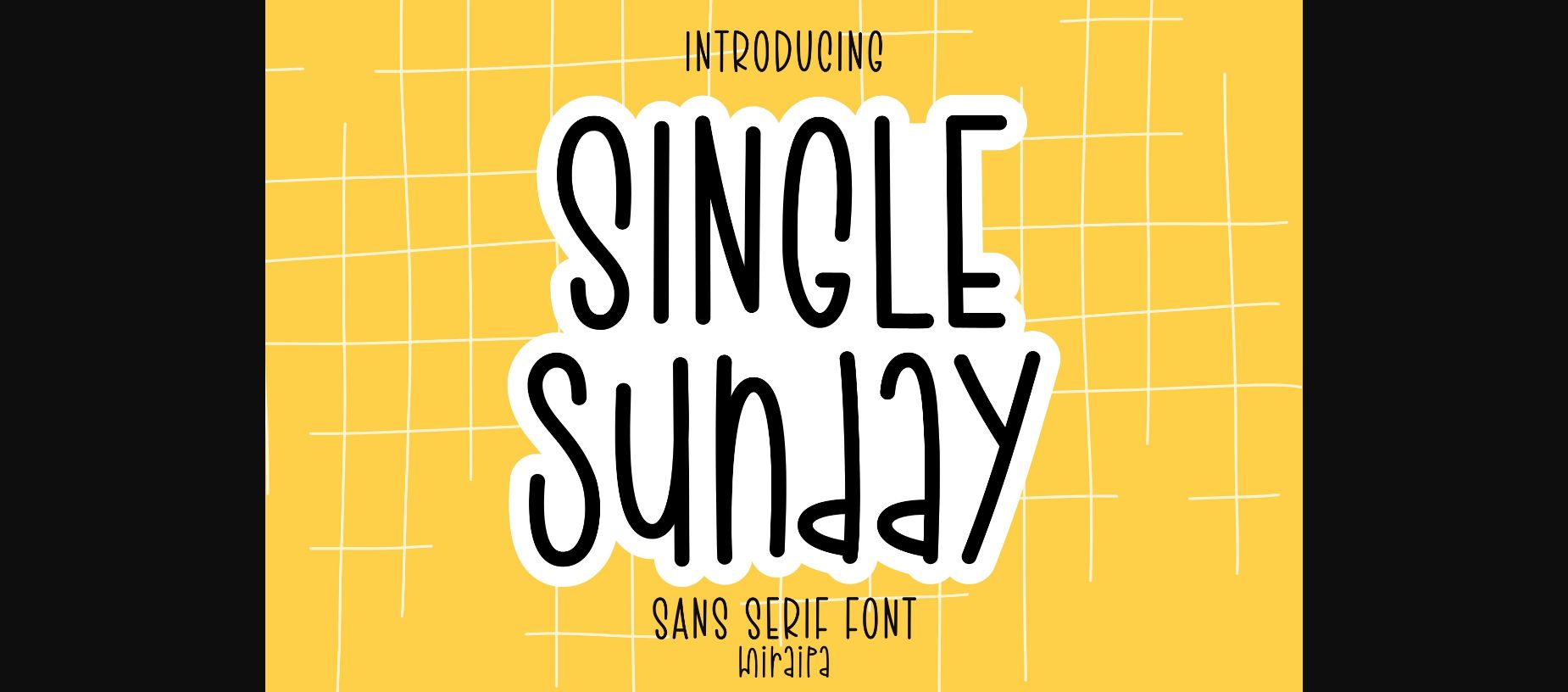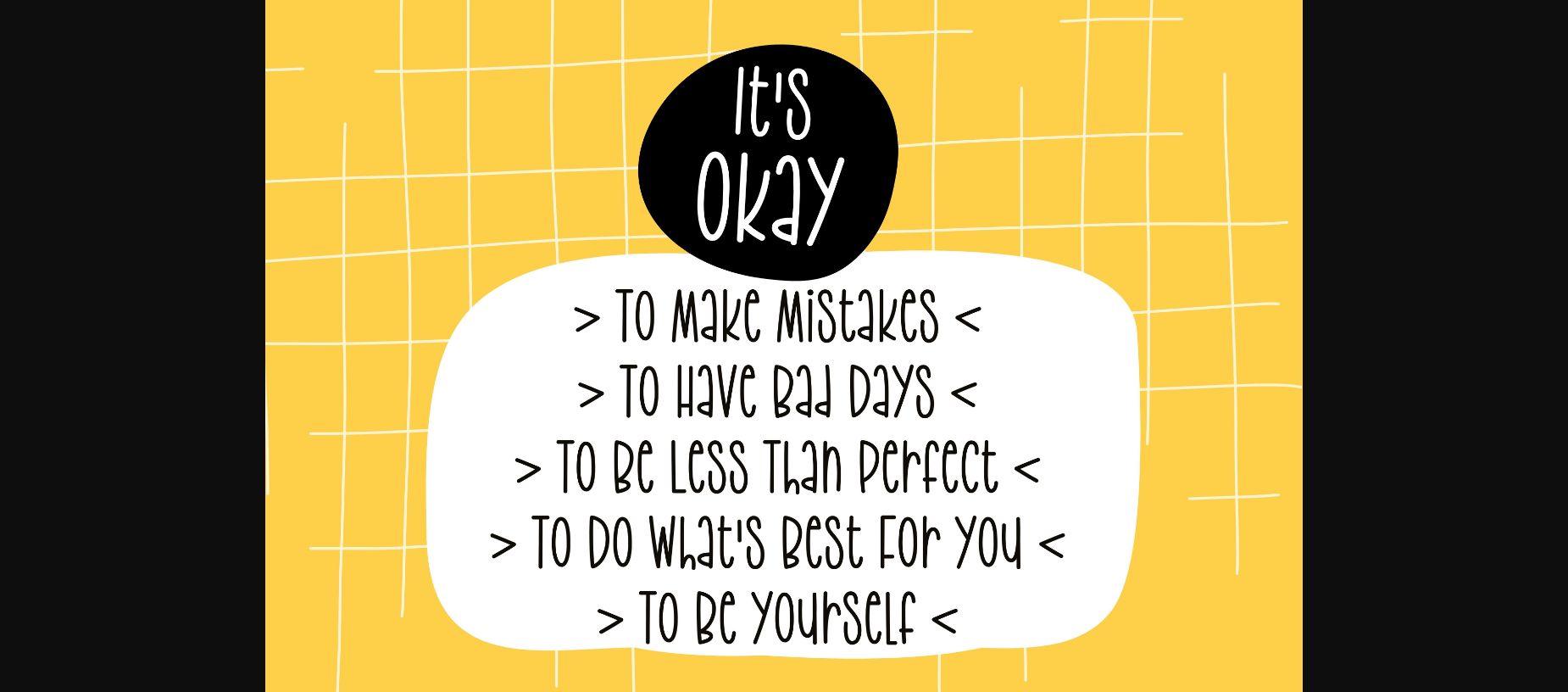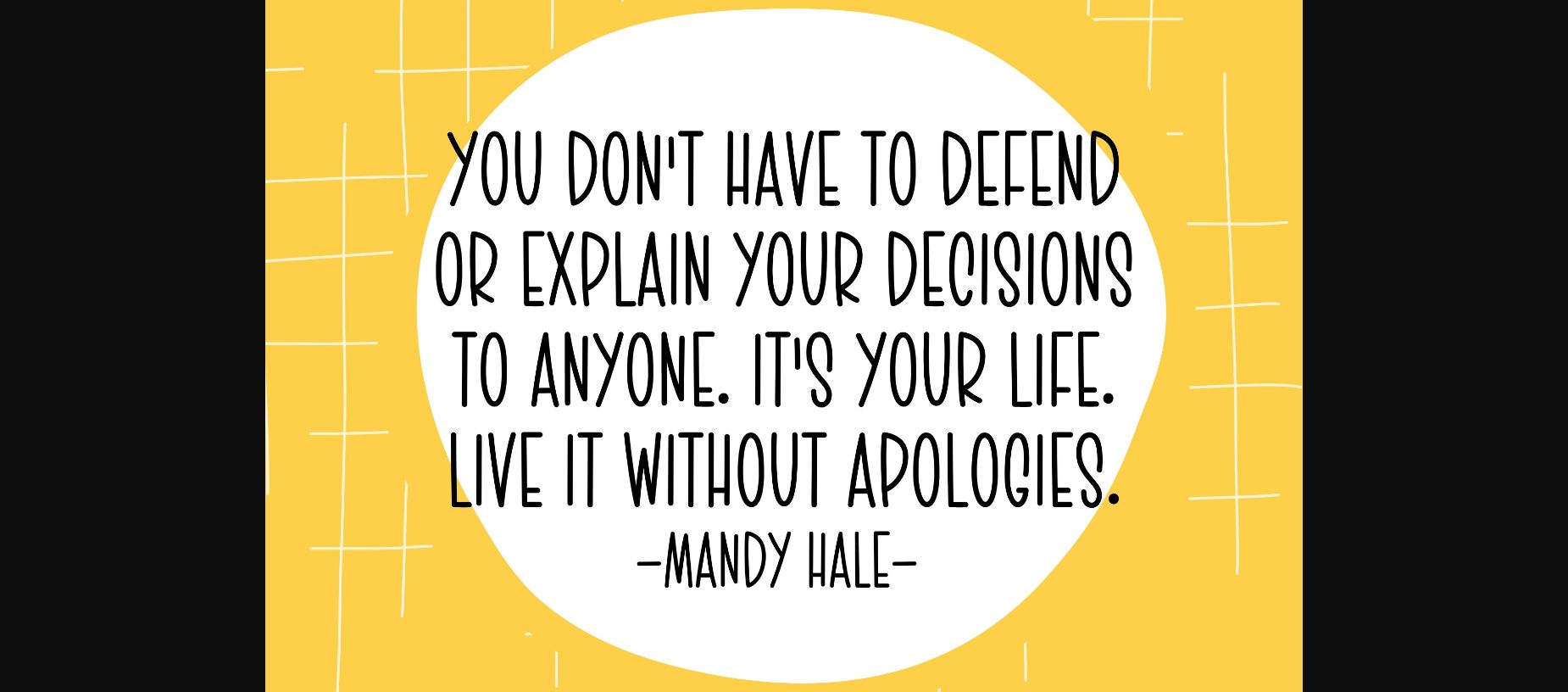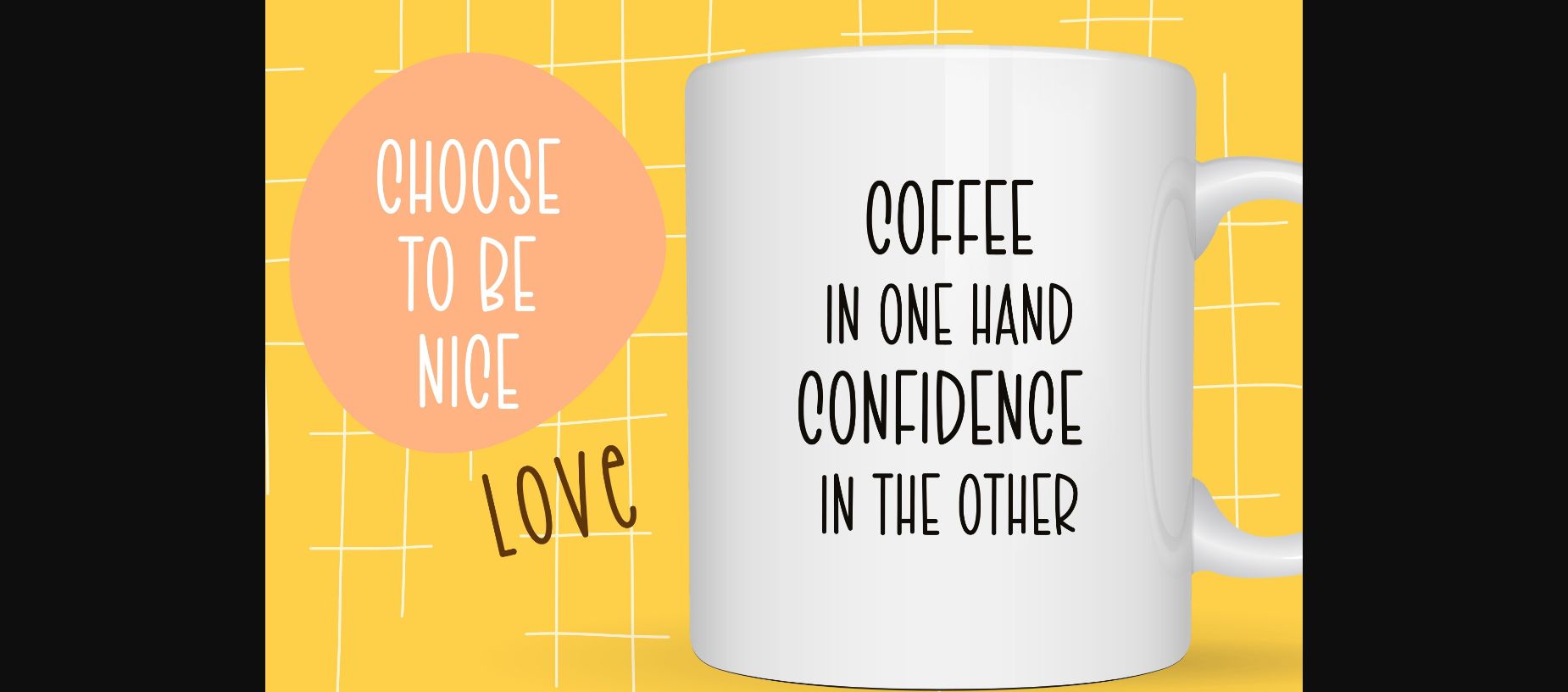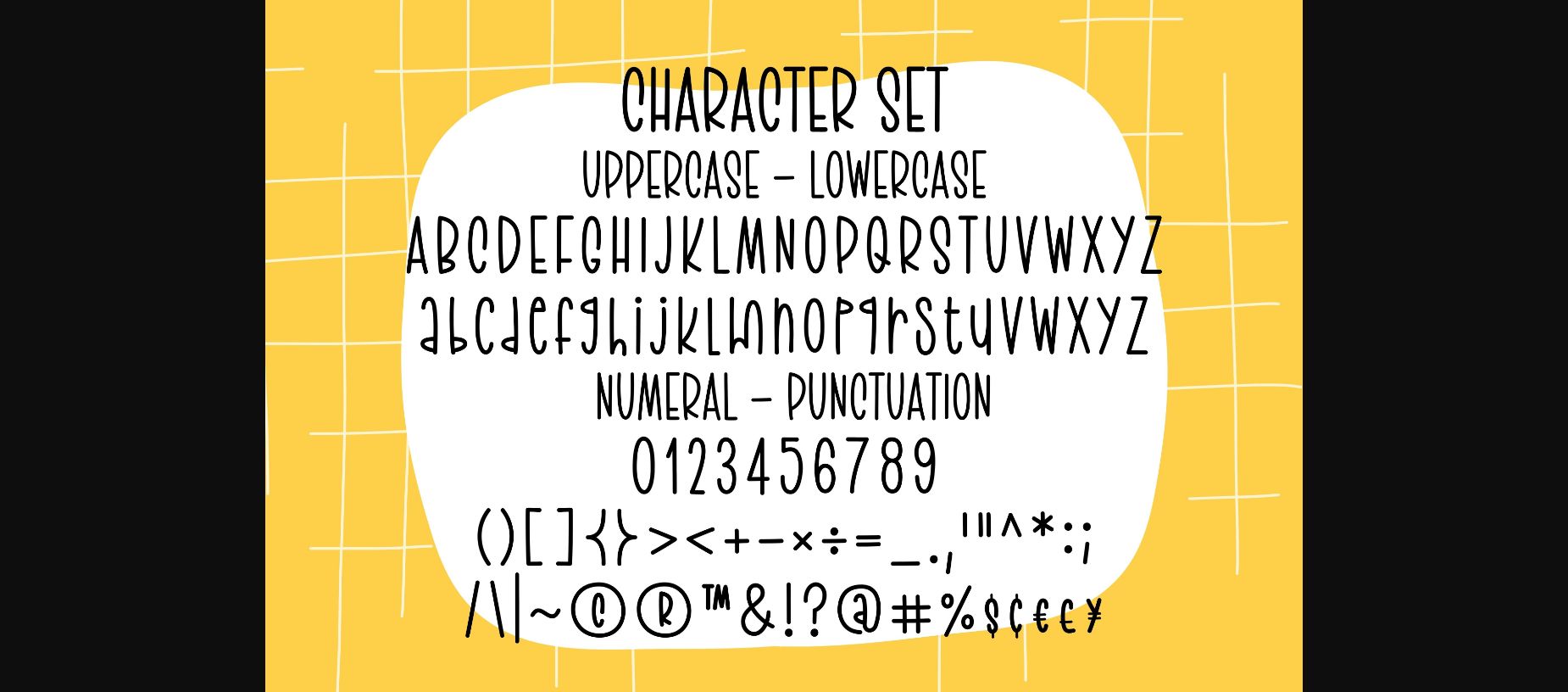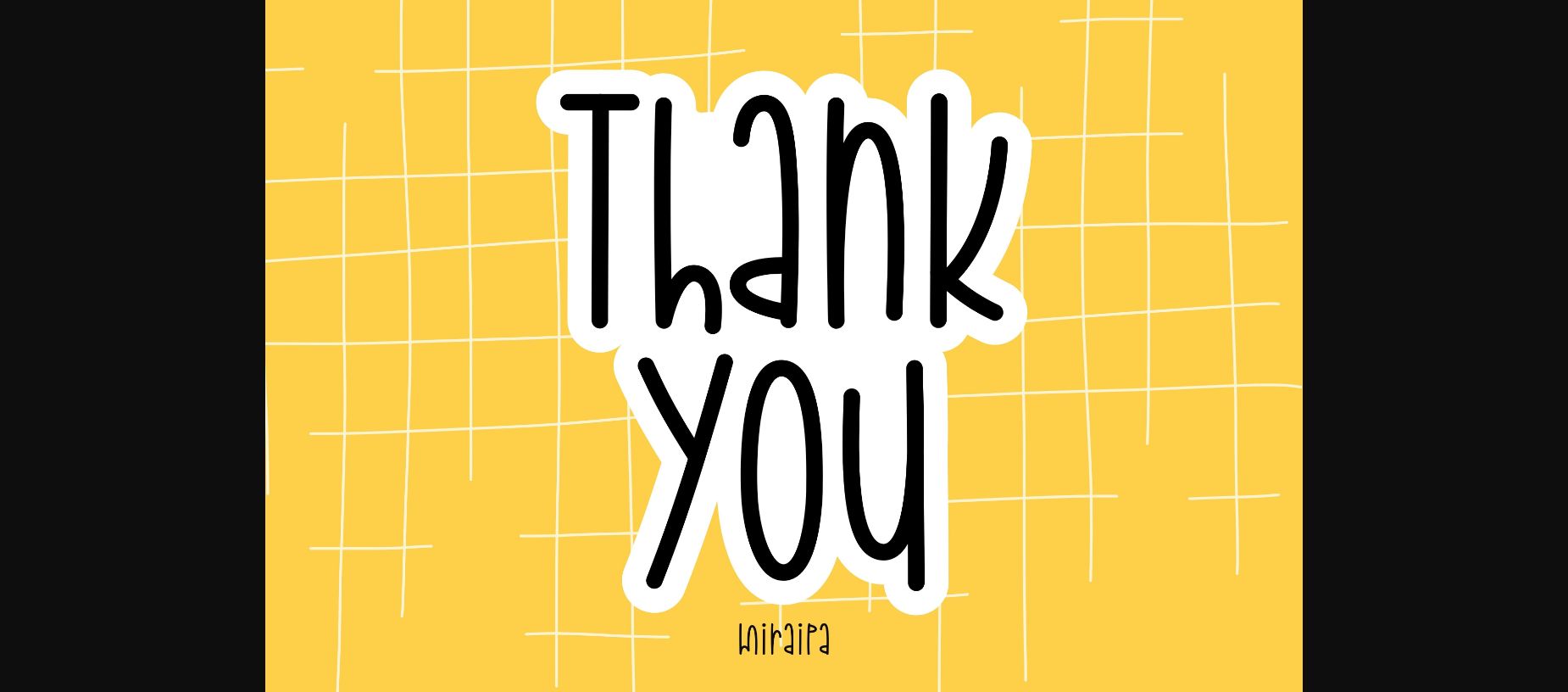
Single Sunday Font
About Single Sunday Font
Single Sunday is designed in a cute and playful sans serif font style. It’s charming, whimsical, and a bit quirky. It would be an awesome addition to your fun projects or creative projects.